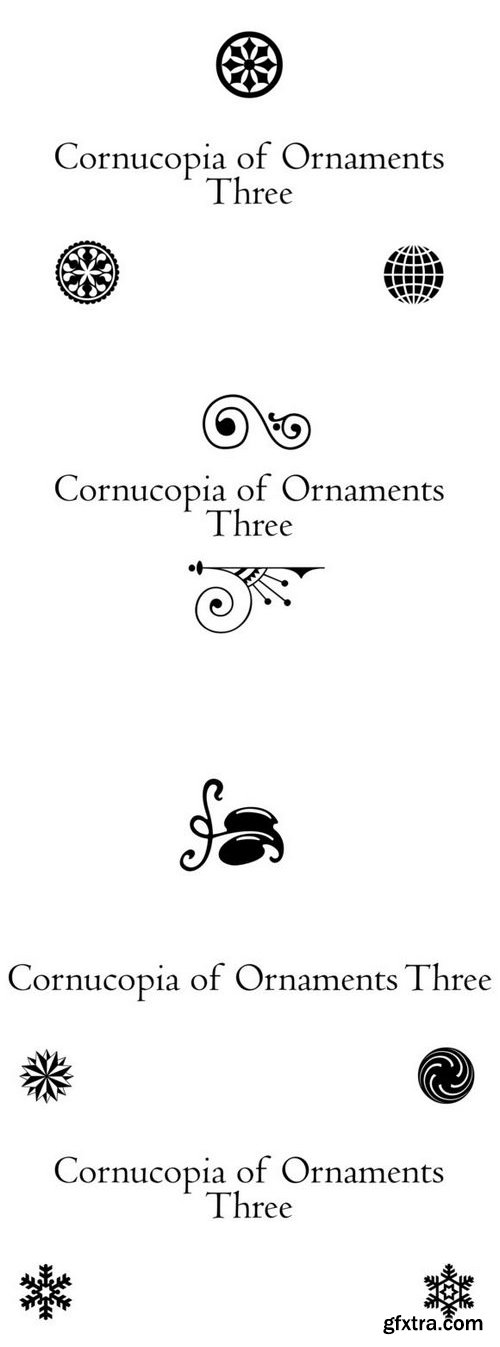
this is the commercial licenced version of Intellecta's Cornucopia of Ornaments apreciated font, ready to useof Intellecta's Cornucopia of Ornaments Three, a sort of ornaments and dingbats, ready to use